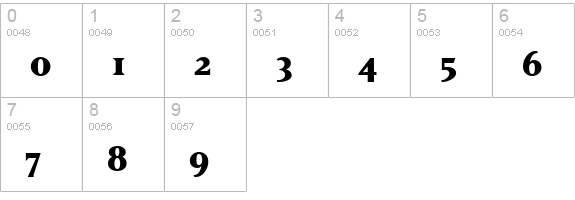
MatrixExtraBoldOldstyle Bold Font Details
MatrixExtraBoldOldstyle Bold is a strong, high-contrast variant in the MatrixExtraBoldOldstyle typeface family \xE2\x80\x94 well suited to headlines, attention-grabbing titles, and strong calls-to-action.
MatrixExtraBoldOldstyle Bold font is a bold and powerful typeface that exudes a sense of strength and confidence. Its thick, sturdy letterforms make a bold statement while maintaining a classic and timeless aesthetic. The extra bold weight of this font gives it a commanding presence on any design project, making it perfect for headlines, titles, and other attention-grabbing elements. What sets MatrixExtraBoldOldstyle Bold font apart is its unique oldstyle design, which adds a touch of vintage charm to its modern look. This font is versatile and can be used in a wide range of design applications, from posters and flyers to logos and branding materials. And the best part? MatrixExtraBoldOldstyle Bold font is completely free to download at FontsMarket.com. So go ahead and give your designs a bold and striking look with this impressive and eye-catching typeface.